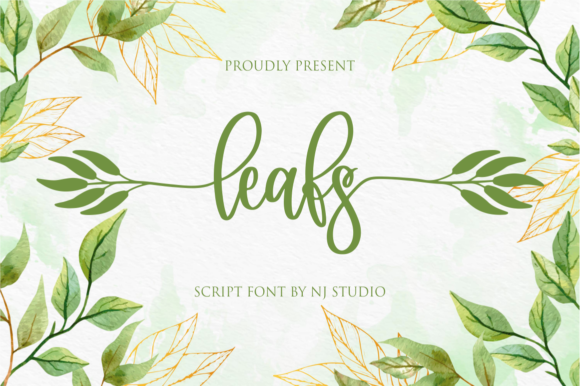
Leafs: A Friendly Handwritten Font for Warm Brand Identities
I opened a fresh brand board last Tuesday with a cup of coffee that had gone cold beside me. The project was a small specialty coffee shop—the kind of place with exposed brick, mismatched vintage chairs, and a menu written on a chalkboard that changes with the seasons. The owners wanted a visual identity that felt personal, approachable, and just a little bit playful. They didn’t want something that looked like every other minimalist coffee brand out there. They wanted warmth. That’s when I remembered I had recently downloaded a test version of Leafs, a cute and casual handwritten font from the Script Amp collection of Fonts, and decided to drop it into the logo draft. Within ten minutes, I knew this was the direction.
First Impressions on the Brand Board
The first thing I noticed about Leafs was how naturally it sat on the screen. It didn’t feel stiff or overly polished. It had that relaxed, hand-drawn quality that makes you want to trust it. The strokes were soft without being messy, and the letterforms had a friendly bounce that felt genuine rather than forced. I placed the word “coffee” in Leafs next to a clean sans serif heading, and the contrast immediately gave the composition a sense of personality. The swashes and ligatures were what really caught my attention. They weren’t just decorative—they gave the text a rhythm that felt like someone had written it with a fine pen on a napkin. I started experimenting with the ligature sets, and each variation seemed to unlock a slightly different mood for the brand.
What impressed me most was how versatile Leafs felt right out of the gate. It wasn’t just a one-trick script. It could be playful but also elegant depending on how I used the alternate characters. I found myself cycling through the swash options for the capital letters, trying to find the perfect combination for the coffee shop’s logotype. The “C” with a sweeping swash underneath felt warm and inviting, while a more restrained version worked better for the tagline on the menu board. This flexibility is exactly what I look for in a display font when I’m building a brand identity from scratch.
Building a Logo That Feels Human
For the coffee shop’s main logo, I wanted something that felt like it could be stamped on a paper bag or written on a chalkboard. Leafs delivered that in spades. I used the standard letterforms for the primary wordmark and added one of the swash ligatures to the final letter to give it a subtle flourish. The result was a logotype that looked like it had been hand-lettered by the shop owner themselves—approachable, imperfect in the best way, and instantly memorable. I tested it in black on kraft paper and in white on a dark storefront render, and it held its readability beautifully. Even at smaller sizes, the letter shapes stayed clear, which isn’t always the case with script fonts that rely heavily on flourishes.
I also experimented with Leafs as an accent element in the brand system. For example, I used one of the swash characters as a standalone decorative mark on the back of business cards. It worked as a subtle branding element without needing to spell anything out. That kind of versatility makes a handwritten font feel like a real design tool rather than just a decorative afterthought. The ligatures in Leafs helped me avoid awkward spacing issues that sometimes show up in other scripts when certain letter combinations clash. Everything flowed naturally, which saved me a lot of manual kerning time.
Taking Leafs from Screen to Printed Matter
One of the critical tests for any creative font is how it performs in print. I designed a small run of mockup materials for the coffee shop: a takeaway cup label, a small gift card, and a flyer advertising their weekend brunch special. Leafs looked even better in print than it did on screen. The swashes had a tactile quality that mimicked real ink flow, and the ligatures created a seamless reading experience. On the cup label, the handwritten feel made the product look artisanal and handmade, which is exactly the perception the owners wanted to communicate. The flyer used Leafs for the headline and a clean sans serif font for the body copy, and the pairing felt natural and unhurried.
I also printed a few business cards with Leafs as the primary typeface for the name and a subtle serif for the contact details. The contrast between the casual script and the more formal serif created a visual hierarchy that was easy to read at a glance. The card felt premium without being stuffy—like something you’d pick up at a design studio or a boutique bakery. This is where Leafs really shines as a logo font and a display font for short-form text. It invites the reader in without demanding too much attention, which is a hard balance to strike.
Finding the Right Supporting Typeface
No single font should carry the entire weight of a brand identity, and Leafs is no exception. It works best when paired with a neutral, grounded typeface that lets the script breathe. For this coffee shop project, I paired it with a warm sans serif font for the menu descriptions, pricing, and informational copy. The sans serif had rounded terminals that echoed the friendliness of Leafs without competing with its personality. I also tested a serif font pairing for the shop’s story section on the website, and that combination gave the brand a more editorial, sophisticated feel. The versatility of Leafs means it can play nicely with both options, depending on the tone you need for a specific piece of collateral.
When I work on brand identity projects, I always test how a handwritten font behaves in longer text blocks. While Leafs is not intended for body copy—it’s a display font at heart—I did find it worked well for short phrases, pull quotes, and accent lines in editorial layouts. For a café menu, using it for category headers like “Breakfast” or “Coffee” added a personal touch that a standard sans serif couldn’t replicate. The key is to use it sparingly and let it serve as the emotional anchor of the design rather than the workhorse.
Social Media and Digital Presence
The coffee shop needed an Instagram presence that felt as warm as their storefront. I used Leafs for the quote cards, product announcements, and story highlights. On social media, where users scroll quickly, a font with strong personality can stop the thumb. Leafs did exactly that. The swashes added visual interest to square posts, and the ligatures made even a simple “Good morning” feel like a handwritten note from the owner. I designed a set of highlight cover icons using the swash characters as decorative elements, and they tied the whole profile together without needing photos.
Leafs is not the kind of script font that tries to be everything to everyone. It has a specific personality—cute, casual, and incredibly friendly—and that personality is its greatest strength. When you’re working on branding projects that need warmth, approachability, and a handmade feel, this is the kind of handwritten font you reach for. It made the coffee shop project feel less like a design exercise and more like a collaboration with real people who care about how their brand makes others feel. And honestly, that’s the best thing a font can do.